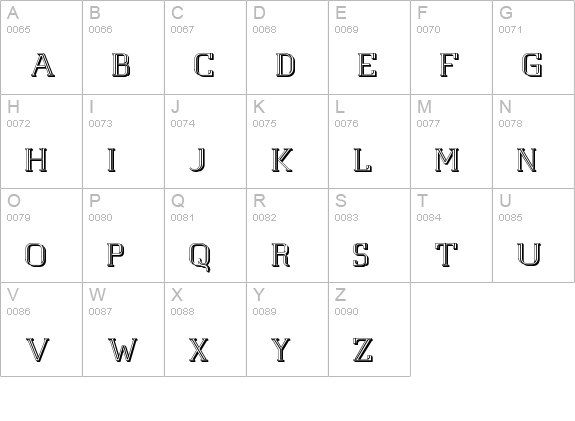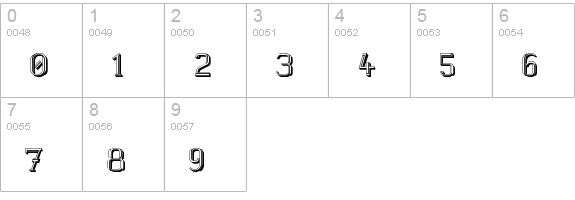
White Line Fever Light 3d 1.00 Font Details
White Line Fever Light 3d 1.00 font is a stylish and modern typeface that is perfect for adding a touch of sophistication to your design projects. This unique font features intricate 3D effects that make it stand out and grab the attention of viewers. With its sleek lines and elegant curves, White Line Fever Light 3d 1.00 font exudes a sense of class and professionalism. The best part is that this amazing font is available for free download at FontsMarket.com. Whether you are working on a graphic design project, creating a logo, or designing a website, White Line Fever Light 3d 1.00 font will add a touch of flair and creativity to your work. Don't miss out on this opportunity to enhance your designs with this stunning font that is both eye-catching and versatile. Download it now and take your design projects to the next level!